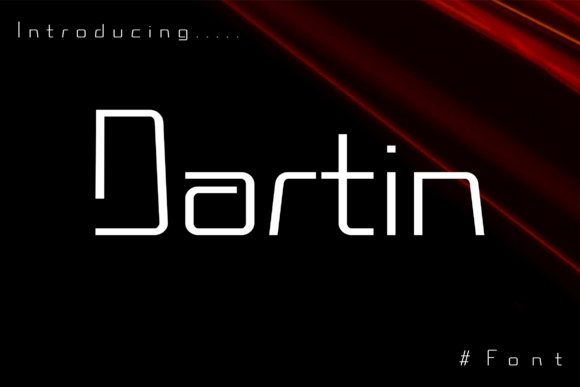
Experience the Electric Energy of Dartin: The Ultimate Techno-Inspired Font
In the world of design, fonts play a crucial role in conveying the tone and aesthetic of a project. For those who want to capture the vibrant energy of the techno music scene, look no further than the Dartin font. This bold and futuristic typeface is designed to encapsulate the pulsating rhythm and effervescence of the underground music scene, making it an indispensable tool for DJs, club owners, music lovers, and partygoers alike.
Key Features of Dartin Font
- Bold and Futuristic Design: Dartin font boasts a bold and futuristic design that is sure to grab attention.
- Techno-Inspired: The font is inspired by the techno music scene, making it perfect for designs that require a high-energy feel.
- Versatile: Dartin font can be used for a variety of design projects, from event posters to album covers and club visuals.
10 Ways to Use Dartin Font
- Event Posters: Use Dartin font to create eye-catching posters for techno music events, concerts, and festivals.
- Album Covers: Give your music album covers a futuristic look with Dartin font.
- Club Visuals: Add an otherworldly charm to your club visuals with Dartin font.
- Music Blogs: Use Dartin font to create bold and attention-grabbing headlines for music blogs.
- Social Media Graphics: Create engaging social media graphics with Dartin font to promote your music events or products.
- Merchandise: Use Dartin font to create stylish merchandise such as t-shirts, stickers, and flyers.
- Music Videos: Incorporate Dartin font into your music videos to add a futuristic touch.
- Concert Banners: Create bold and eye-catching concert banners with Dartin font.
- Festival Branding: Use Dartin font to create a cohesive brand identity for your music festival.
- DJ Promotional Materials: Use Dartin font to create promotional materials such as business cards, brochures, and posters for DJs.
Benefits of Using Dartin Font
- Grabs Attention: Dartin font is designed to grab attention and make a statement.
- Conveys Energy: The font effectively conveys the high-energy feel of the techno music scene.
- Versatile: Dartin font can be used for a variety of design projects, making it a valuable addition to your font library.
- Easy to Read: Despite its bold design, Dartin font is easy to read, making it perfect for use in a variety of contexts.
Tips for Using Dartin Font
- Use it Boldly: Dartin font is designed to be used boldly, so don’t be afraid to experiment with different sizes and colors.
- Pair it with Other Fonts: Dartin font pairs well with other fonts, so experiment with different combinations to find the perfect look for your project.
- Experiment with Colors: Dartin font looks great in a variety of colors, so don’t be afraid to experiment and find the perfect color scheme for your project.
- Keep it Simple: While Dartin font is bold and attention-grabbing, it’s best to keep your design simple and clean to avoid overwhelming your audience.